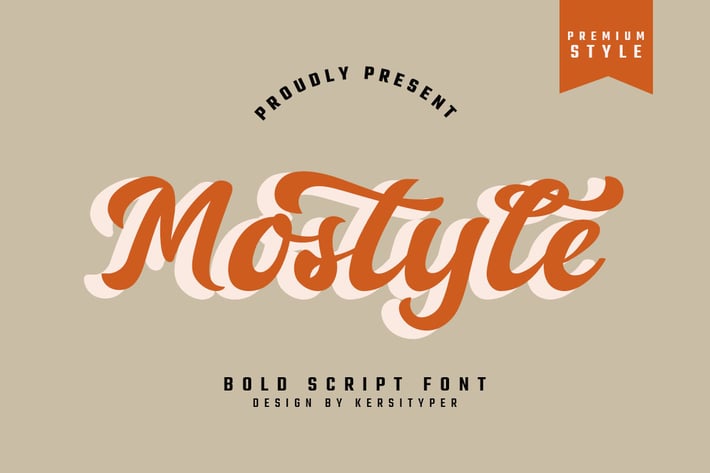
Mostyle Font
Introducing Mostyle font a Display Retro Script Font. Inspired by retro typography and lettering in the '70s and '80s combined with bold typography style. This Font is perfect for vintage and retro design, badges, logos, posters, branding, packaging, signage, book cover.